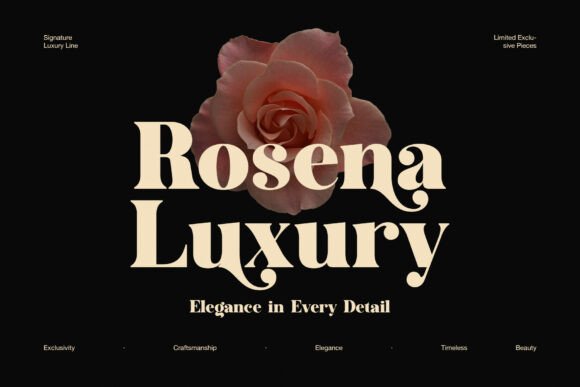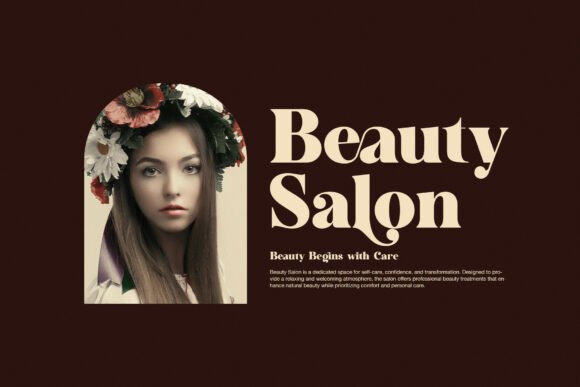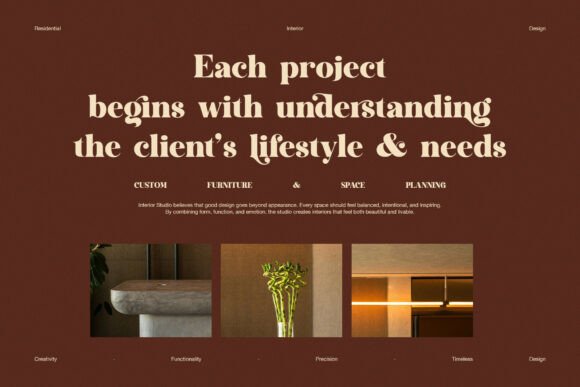
Introduction to Milgan Font
Have you ever stumbled upon the perfect font while working on a creative project, and suddenly everything falls into place? For designers, that moment of serendipity is a game-changer. It’s what makes all the difference between a decent design and a truly exceptional one. Recently, I discovered the Milgan Font, and I’m excited to share its story with you.
| 👤 Author | Perfectype |
The Milgan Font is an elegant modern serif font that embodies confidence, warmth, and refined simplicity. Its stylish and composed feel makes it a strong choice for designers seeking typography that feels expressive yet controlled. With classic serif foundations, smooth curves, and balanced contrast, this font combines the best of both worlds to create a truly unique design resource.
Key Features of Milgan Font
- High-quality design resource ideal for creative projects, offering a unique and modern aesthetic.
- Unique characteristics include a clean, minimalist design and a wide range of customization options.
Honest Review: Milgan Font
I recently had the chance to work with the Milgan Font for a creative project, and I must say it was a great experience. This free download font is a fantastic design resource for any project that requires a modern and sleek touch.
What works well: ✨ The Milgan Font has a clean and minimalist design that makes it perfect for a wide range of creative projects. It’s also highly legible, making it easy to read even at smaller font sizes. The font is also available with a transparent background, which is a huge plus for designers who want to create visually appealing graphics.
What doesn’t: ⚠️ One of the limitations of the Milgan Font is that it only comes in a limited number of weights and styles. While this may not be a problem for simple projects, it can be a challenge for more complex designs that require a lot of font variation.
Overall, I was impressed with the Milgan Font and would definitely recommend it to fellow designers. Its high quality and versatility make it a great addition to any design arsenal. If you’re looking for a free font that’s perfect for a creative project, I’d definitely give the Milgan Font a try.
- Perfect for modern and sleek designs
- Highly legible even at smaller font sizes
- Limited number of weights and styles